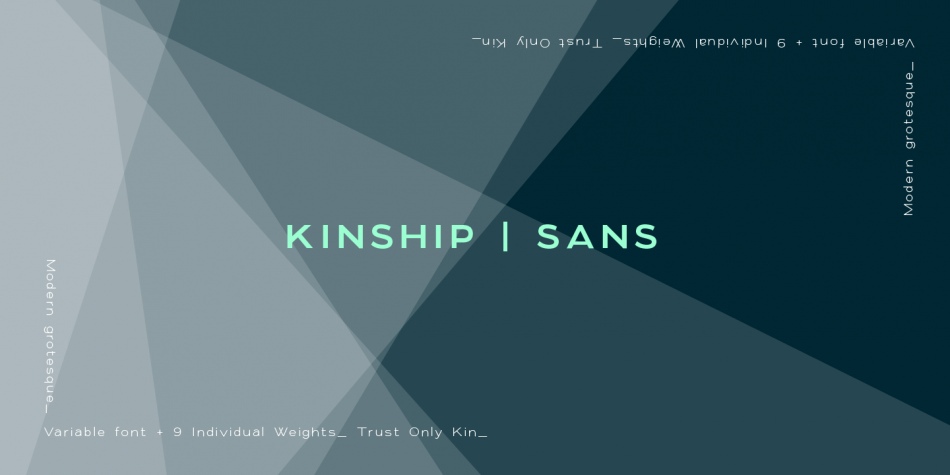
Kinship Sans Font
Kinship Sans Font is perfect for family-centered brand identities, community organization materials, healthcare and wellness campaigns, social service communications, educational institution branding, nonprofit organization marketing, friendly hospitality signage, and relationship-focused business presentations.
What makes Kinship Sans Font exciting is its warm embodiment of human connection that creates instant feelings of belonging and trust through approachable, family-friendly letterforms that welcome everyone into the conversation. The font features gentle curves and harmonious proportions that reflect the caring relationships and mutual support found in strong communities and loving families. Its nurturing character and inclusive appeal make it perfect for organizations that want to communicate compassion, togetherness, and the fundamental human need for connection while creating memorable experiences that bring people closer together and foster lasting bonds.
Kinship Sans Font family includes various caring weights such as Light, Regular, Medium, and Bold variations, often featuring family-inspired stylistic alternates and community-focused decorative elements. The family may include relationship symbols, caring ornaments, and connection-themed ligatures that enhance the font's nurturing aesthetic, providing designers with comprehensive options for creating heartwarming typographic compositions that celebrate human relationships and community spirit.